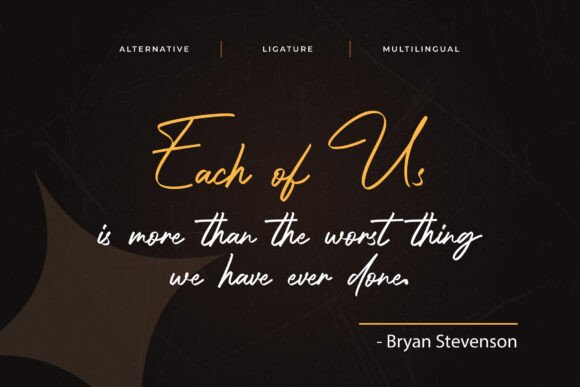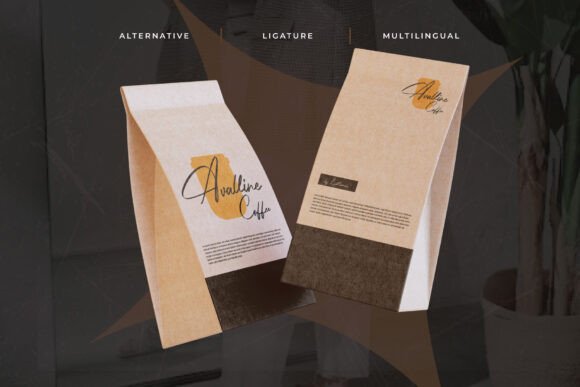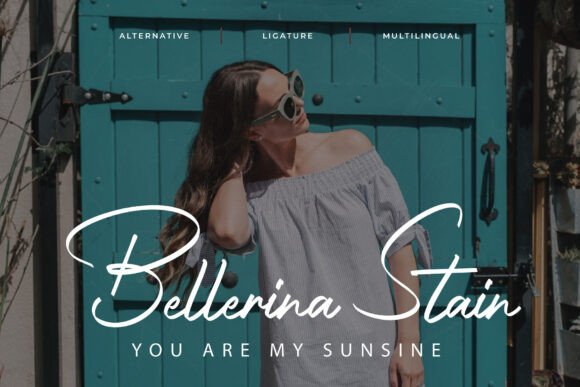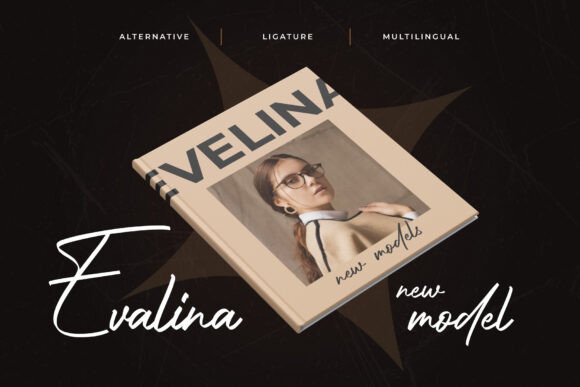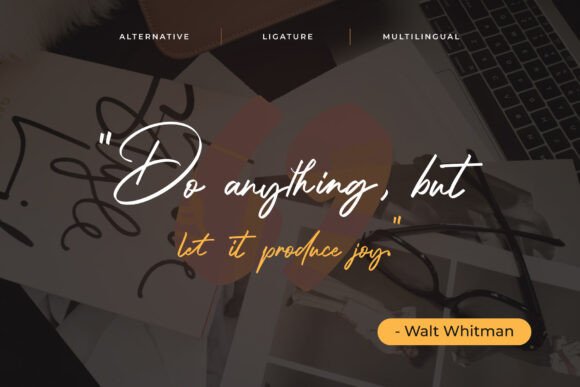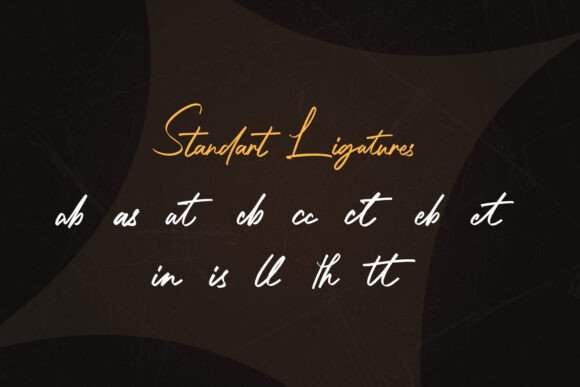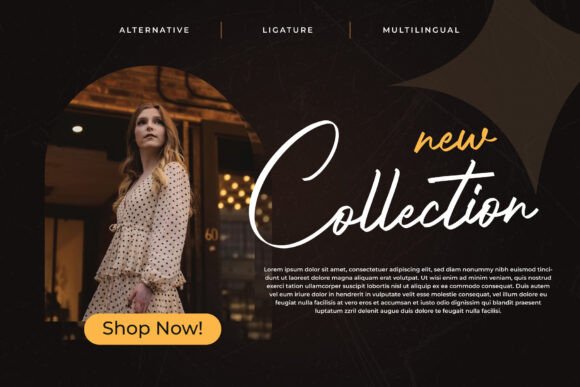
Introducing Avalline Font: Elevate Your Designs with Elegance and Charm
Are you looking for a font that adds a touch of sophistication and warmth to your designs? Look no further than Avalline Font, a beautiful script handwritten font that exudes elegance and charm. With its smooth, flowing strokes and authentic hand-drawn texture, Avalline is the perfect choice for designers and crafters seeking to elevate their projects with a personal and creative touch.
The Characteristics of Avalline Font
Avalline Font is a unique and stylish script font that boasts a range of characteristics that set it apart from other fonts. Its smooth, flowing strokes are reminiscent of handwritten calligraphy, giving your designs a warm and inviting feel. The font’s authentic hand-drawn texture adds a layer of depth and personality to your text, making it perfect for a variety of design applications.
One of the standout features of Avalline Font is its timeless style. Unlike trendy fonts that quickly go out of fashion, Avalline’s classic elegance ensures that your designs will remain stylish and sophisticated for years to come. Whether you’re creating wedding invitations, logos, or social media graphics, Avalline Font is the perfect choice for adding a touch of refinement and luxury.
Uses for Avalline Font
Avalline Font is an incredibly versatile font that can be used for a wide range of design projects. Here are just a few ideas to get you started:
• Wedding Invitations: Add a touch of romance and elegance to your wedding invitations with Avalline Font. Its smooth, flowing strokes and authentic hand-drawn texture make it perfect for creating beautiful and sophisticated wedding stationery.
• Logos: Use Avalline Font to create a unique and memorable logo for your business. Its timeless style and elegant charm make it perfect for businesses seeking to establish a sophisticated brand identity.
• Social Media Graphics: Elevate your social media graphics with Avalline Font. Whether you’re creating graphics for Instagram, Facebook, or Twitter, Avalline’s smooth, flowing strokes and authentic hand-drawn texture will add a touch of elegance and sophistication to your designs.
• Branding and Packaging: Use Avalline Font to create beautiful and sophisticated branding and packaging materials. Its classic elegance and timeless style make it perfect for businesses seeking to establish a luxurious and refined brand identity.
Why Choose Avalline Font?
So why choose Avalline Font for your design projects? Here are just a few reasons:
• Elegance and Charm: Avalline Font exudes elegance and charm, making it perfect for designers and crafters seeking to add a touch of sophistication to their designs.
• Timeless Style: Avalline’s classic elegance ensures that your designs will remain stylish and sophisticated for years to come.
• Authentic Hand-Drawn Texture: The font’s authentic hand-drawn texture adds a layer of depth and personality to your text, making it perfect for a variety of design applications.
• Versatility: Avalline Font is an incredibly versatile font that can be used for a wide range of design projects, from wedding invitations to logos and social media graphics.
Tips for Using Avalline Font
Here are a few tips for using Avalline Font in your design projects:
• Pair with Other Fonts: Avalline Font pairs beautifully with other fonts, so don’t be afraid to experiment with different font combinations.
• Use for Headings and Titles: Avalline Font is perfect for headings and titles, where its smooth, flowing strokes and authentic hand-drawn texture can really shine.
• Add a Personal Touch: Use Avalline Font to add a personal touch to your designs. Its elegant charm and timeless style make it perfect for creating unique and memorable designs.
Font Name Avalline Font
In conclusion, Avalline Font is a beautiful script handwritten font that exudes elegance and charm. With its smooth, flowing strokes and authentic hand-drawn texture, this font brings a personal, warm touch to your designs. Whether for wedding invitations, logos, or social media graphics, Avalline’s timeless style will elevate your projects with sophistication and creativity. So why not give Avalline Font a try today and see the difference it can make in your designs?